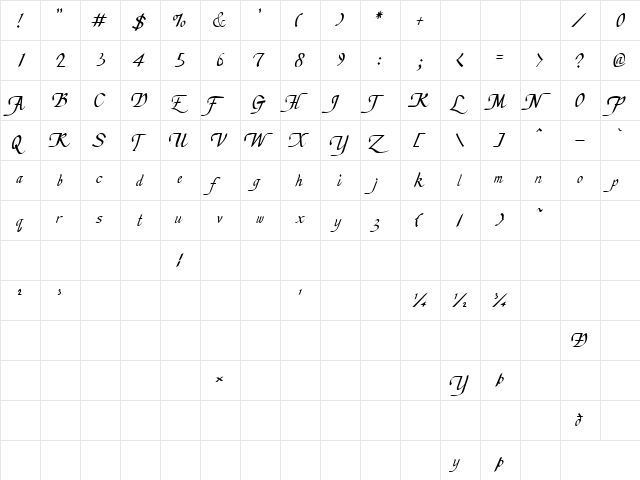
Chancellerie Moderne Demo Regular
Design Context for Chancellerie Moderne Demo Typeface
Chancellerie Moderne Demo takes a measured approach to typography — its balanced proportions and neutral character make it a reliable workhorse for both digital and print work.